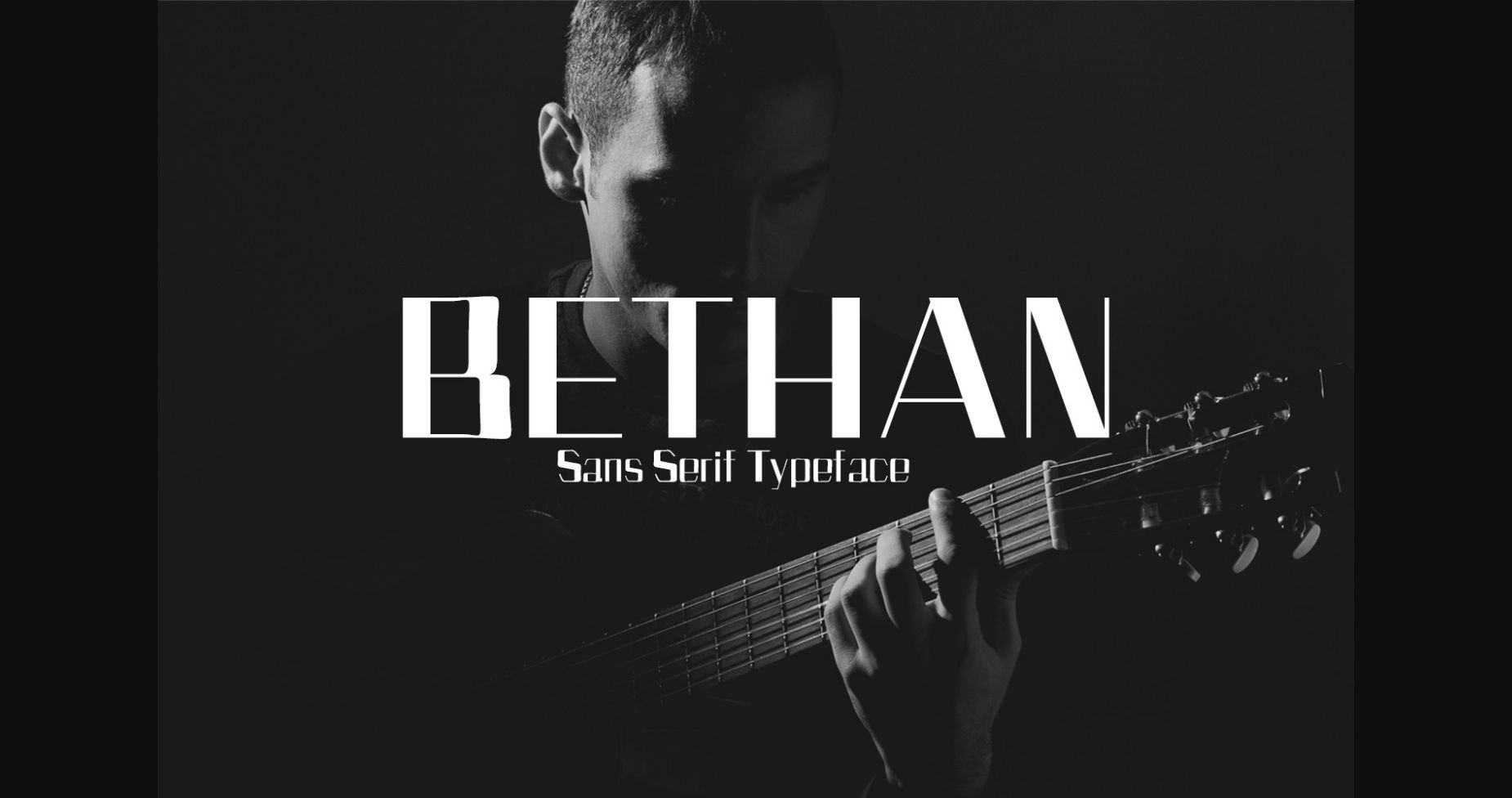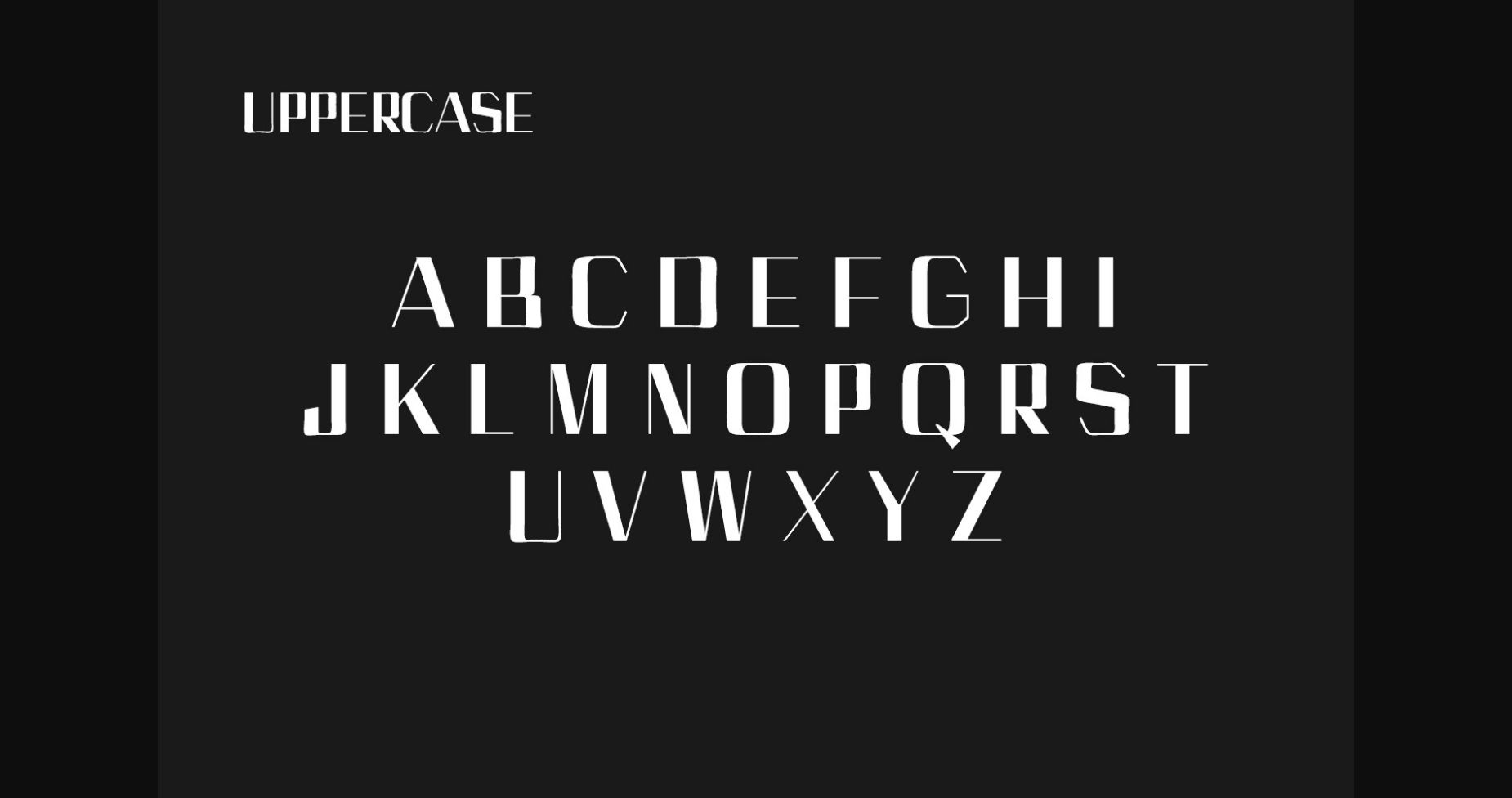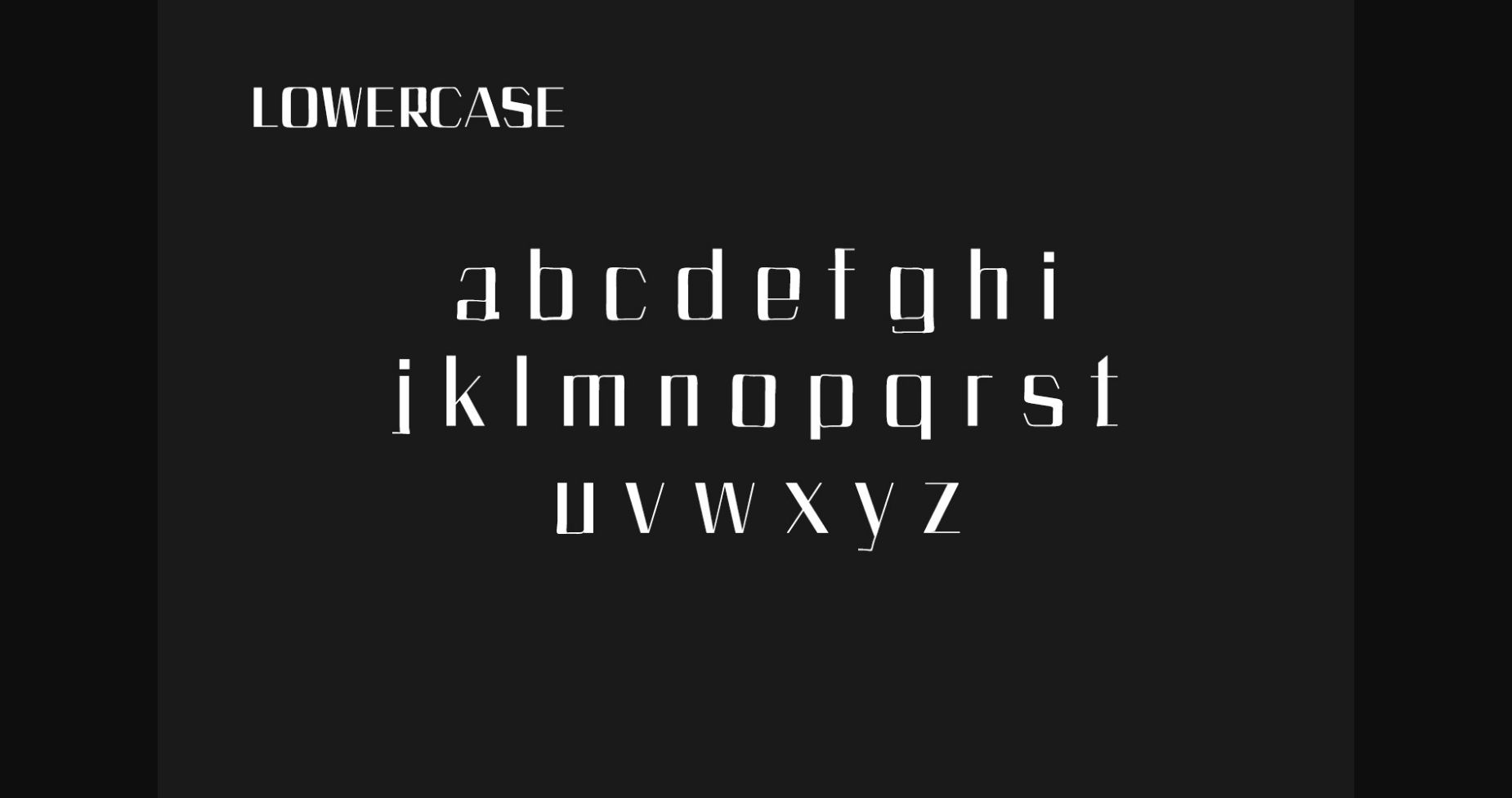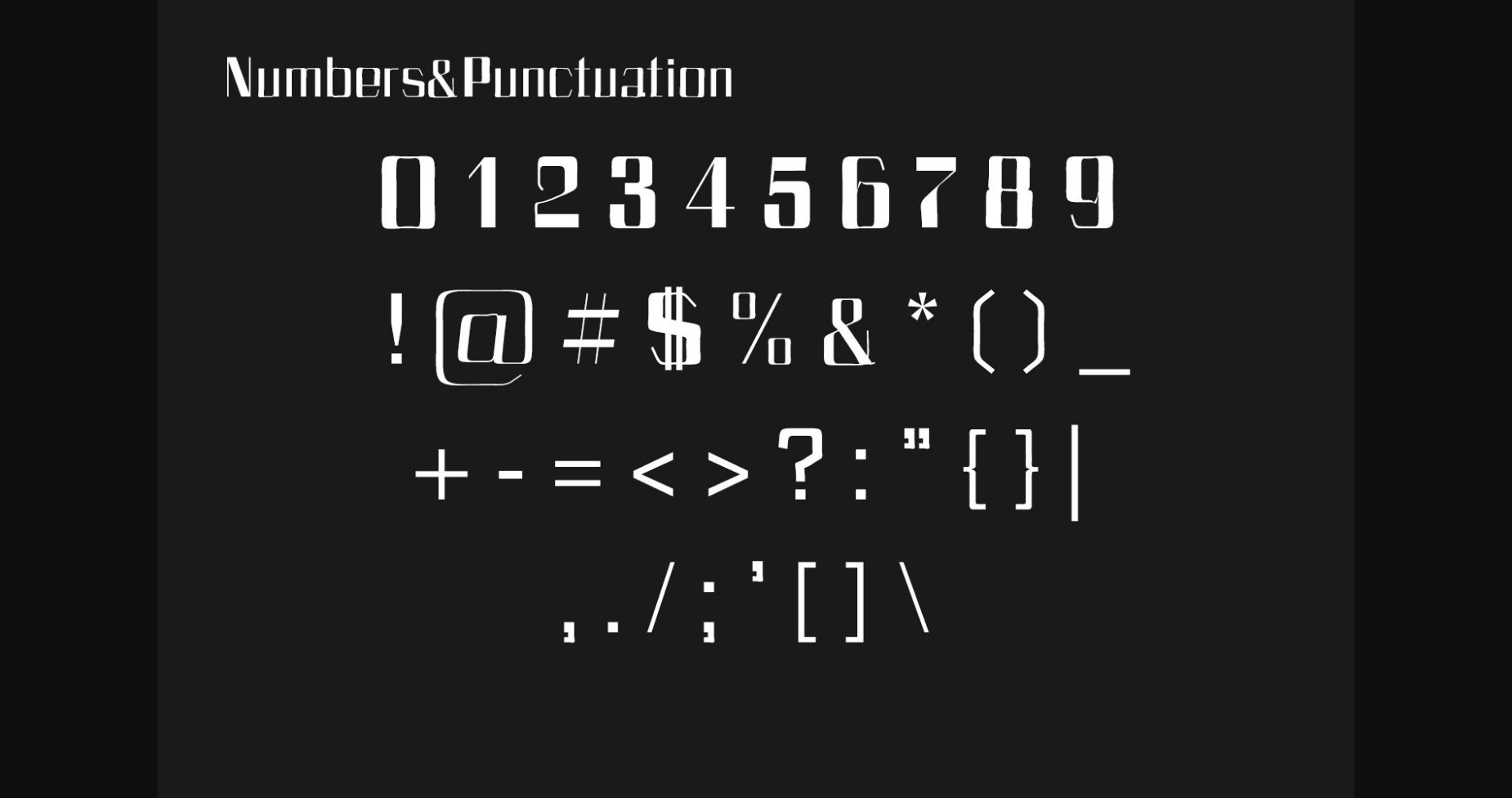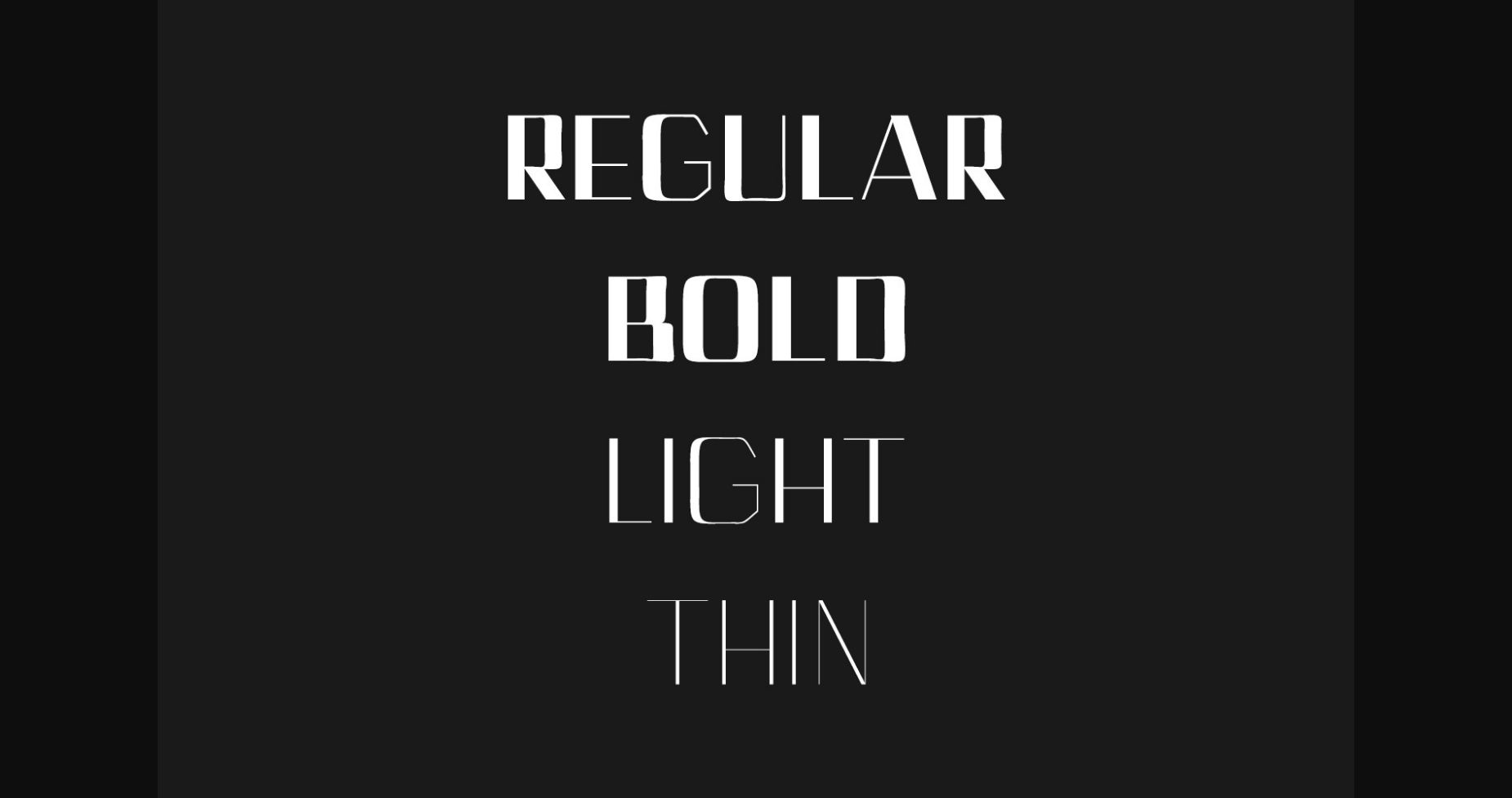
About Bethan Family Font
Bethan is a cool, modern, and almost robotic sans serif font family, perfectly suitable for daring projects that need to stand out and impress!